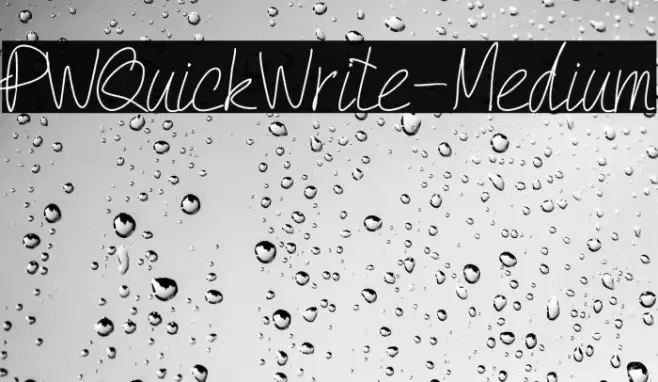
PWQuickWrite-Medium Font
PWQuickWrite-Medium Description
This font features a casual, handwritten style with a playful and informal appearance. The letters are slightly slanted, giving it a dynamic and lively feel. The strokes are smooth and fluid, with a consistent medium weight that maintains readability while adding a personal touch. The uppercase and lowercase letters are well-balanced, and the numerals are clear and distinct. Special characters are included, enhancing its versatility. This font is ideal for projects that require a friendly and approachable aesthetic.
A casual, handwritten font with a playful and informal style from Uncategorized fonts.
- Proposed Projects: Great for personal invitations, greeting cards, casual branding, and social media graphics.
- Overall Style: Casual
- Use Case: Logos, Invitations, Social Media Graphics